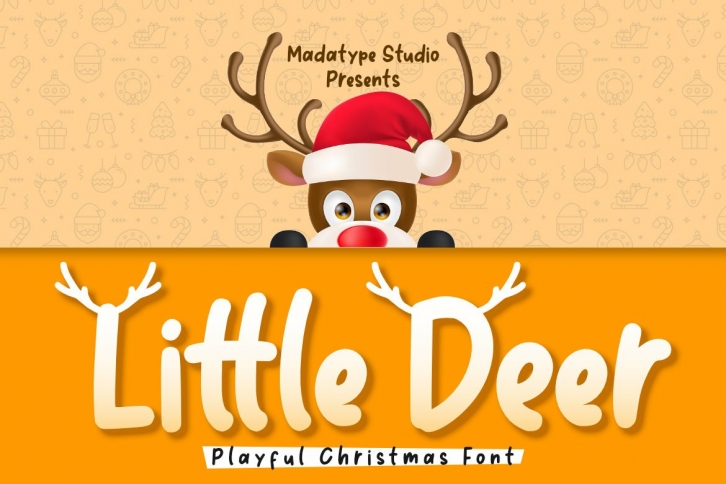
Little Deer is a beautiful font that was designed by Madatype Studio. It's a great choice for designers and creatives who need such a font. It was released on October 1, 2021 and the file size is 3.64 MB. Little Deer may give a more youthful, expressive and casual look to your project. It is a very beautiful, refined, elegant, and high-quality font.